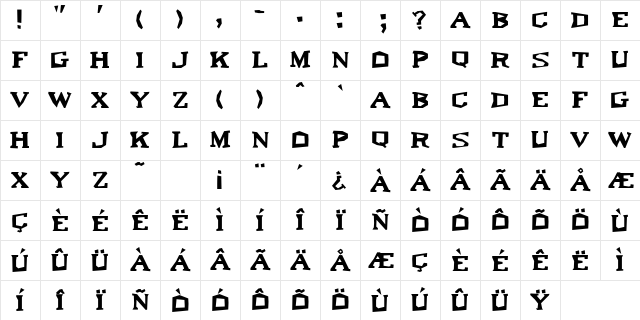
Rochester Medium Free Font
Rochester Medium
Rochester Family
Rochester Medium
Design Context for Rochester
Rochester is a composed and adaptable typeface that performs quietly and consistently across a wide range of design contexts.